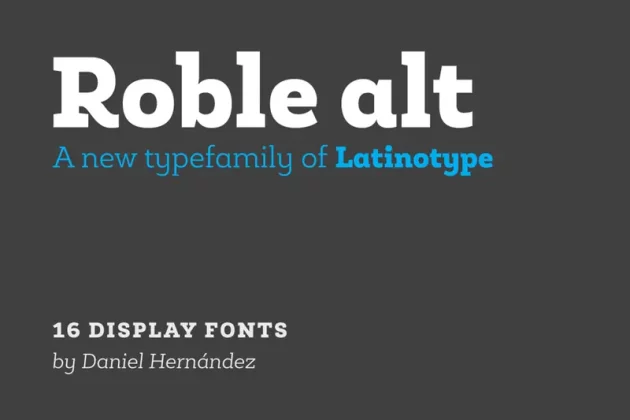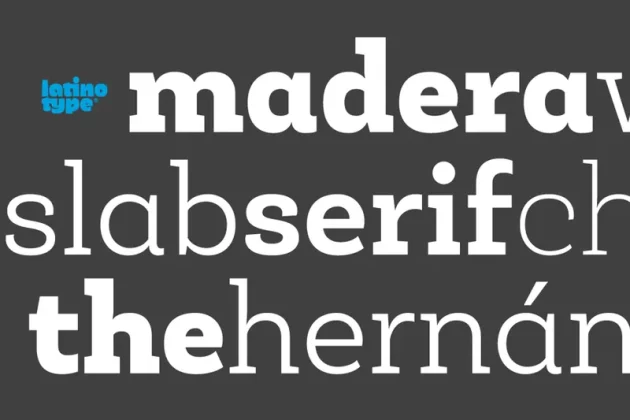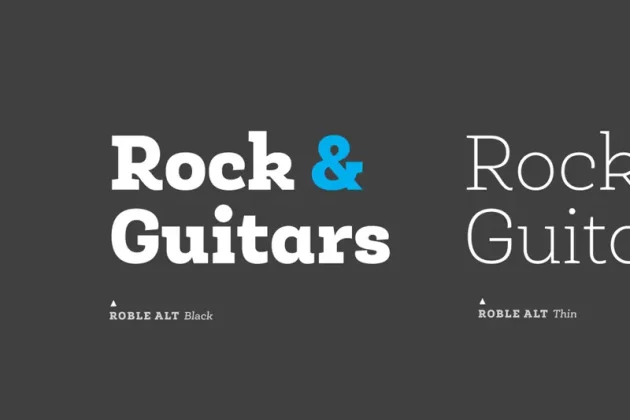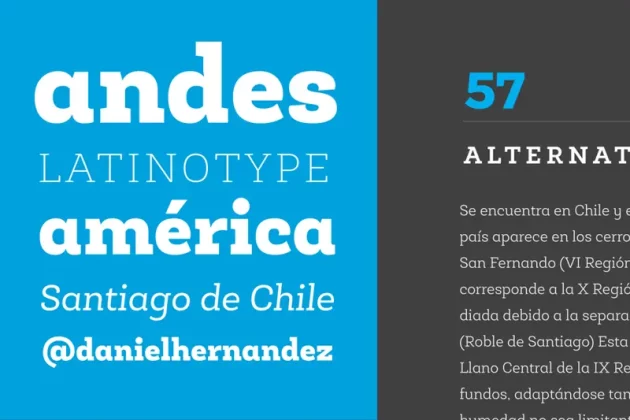
About Roble Alt Font
Roble Alt is a variation of Roble. It is a Slab Serif Font, from a mix between Andes and Sanchez, following an harmony with both fonts one sans and one serif with a fresh and dynamic result.
Roble Alt is a family of 16 display fonts 8 weights plus italics.